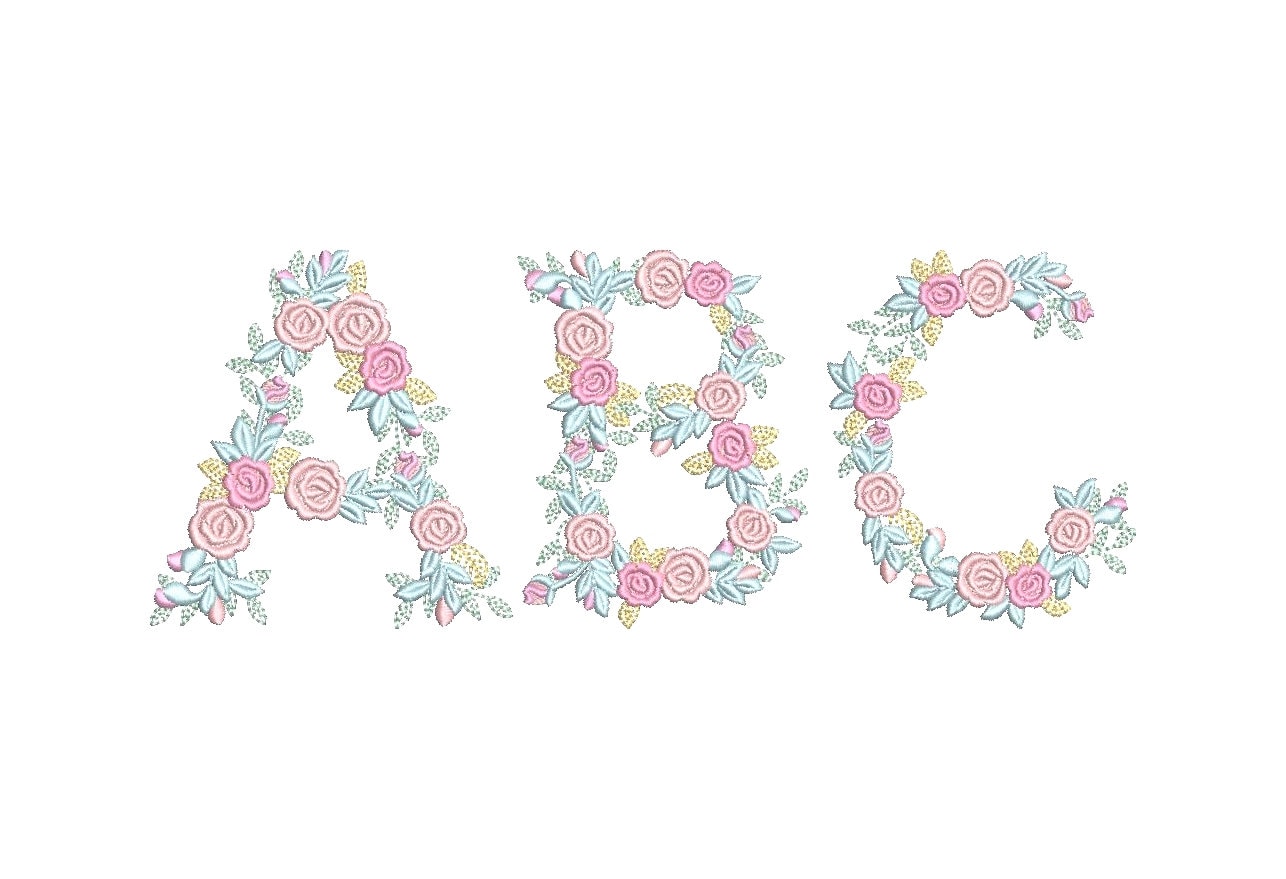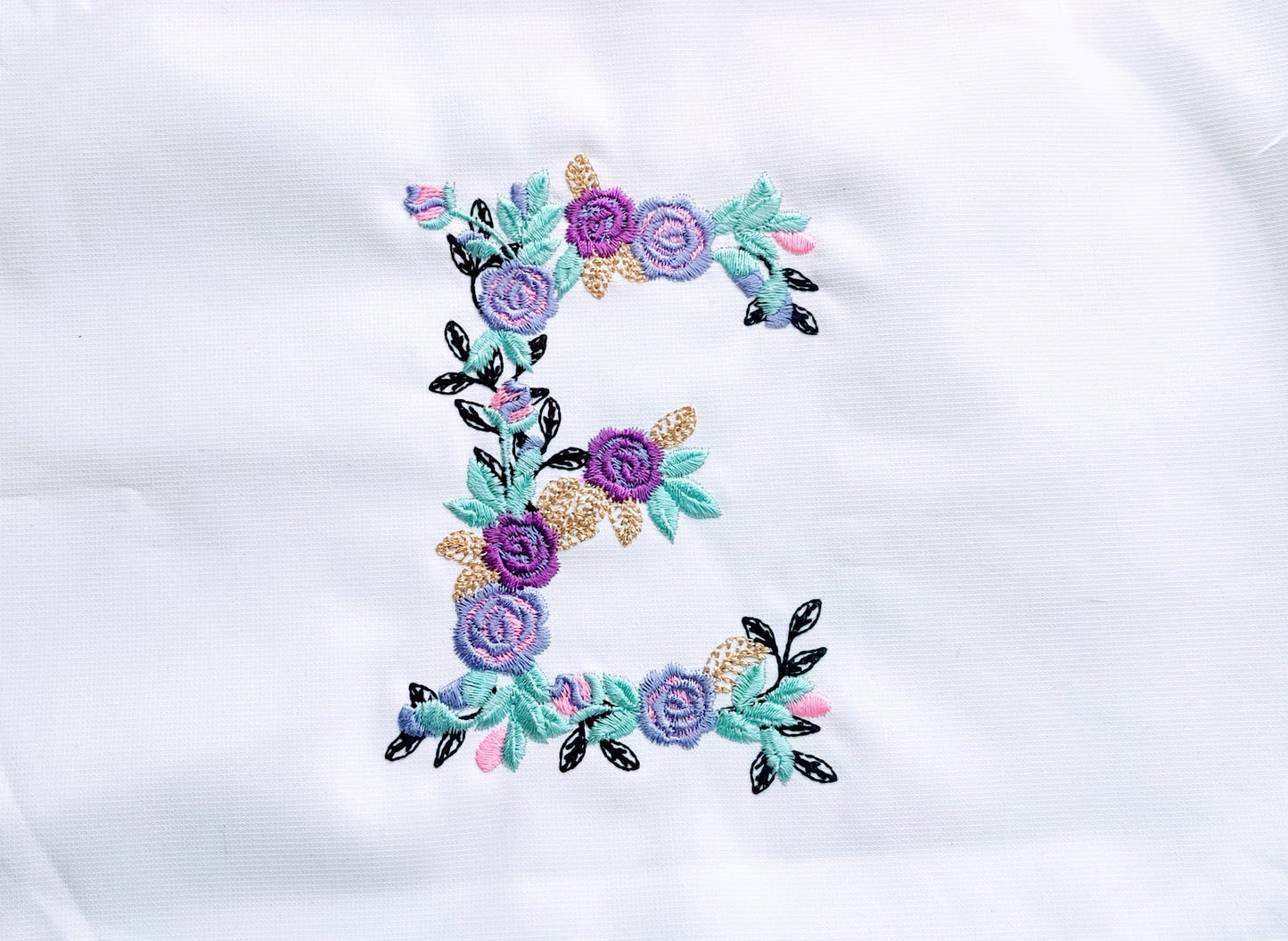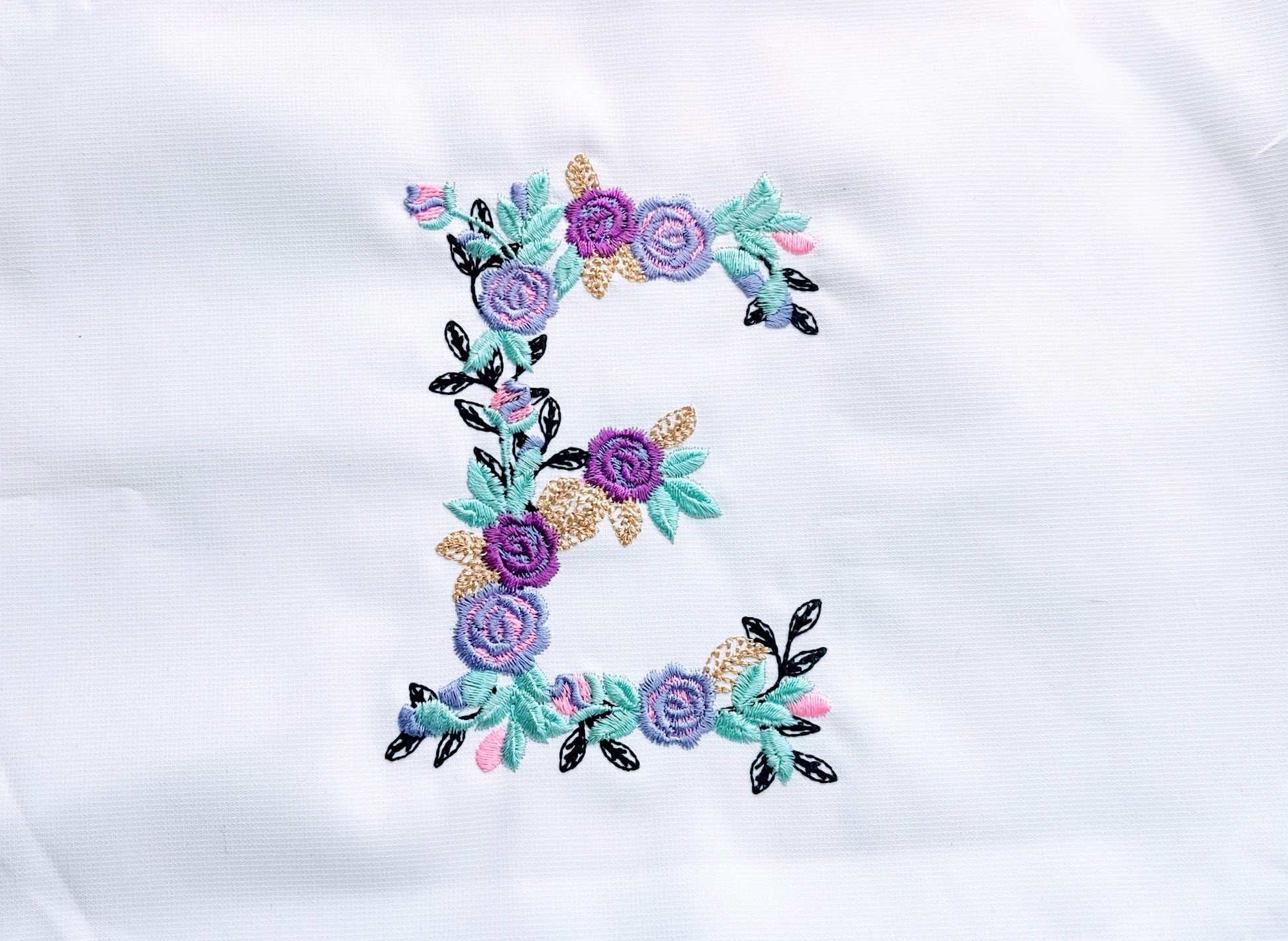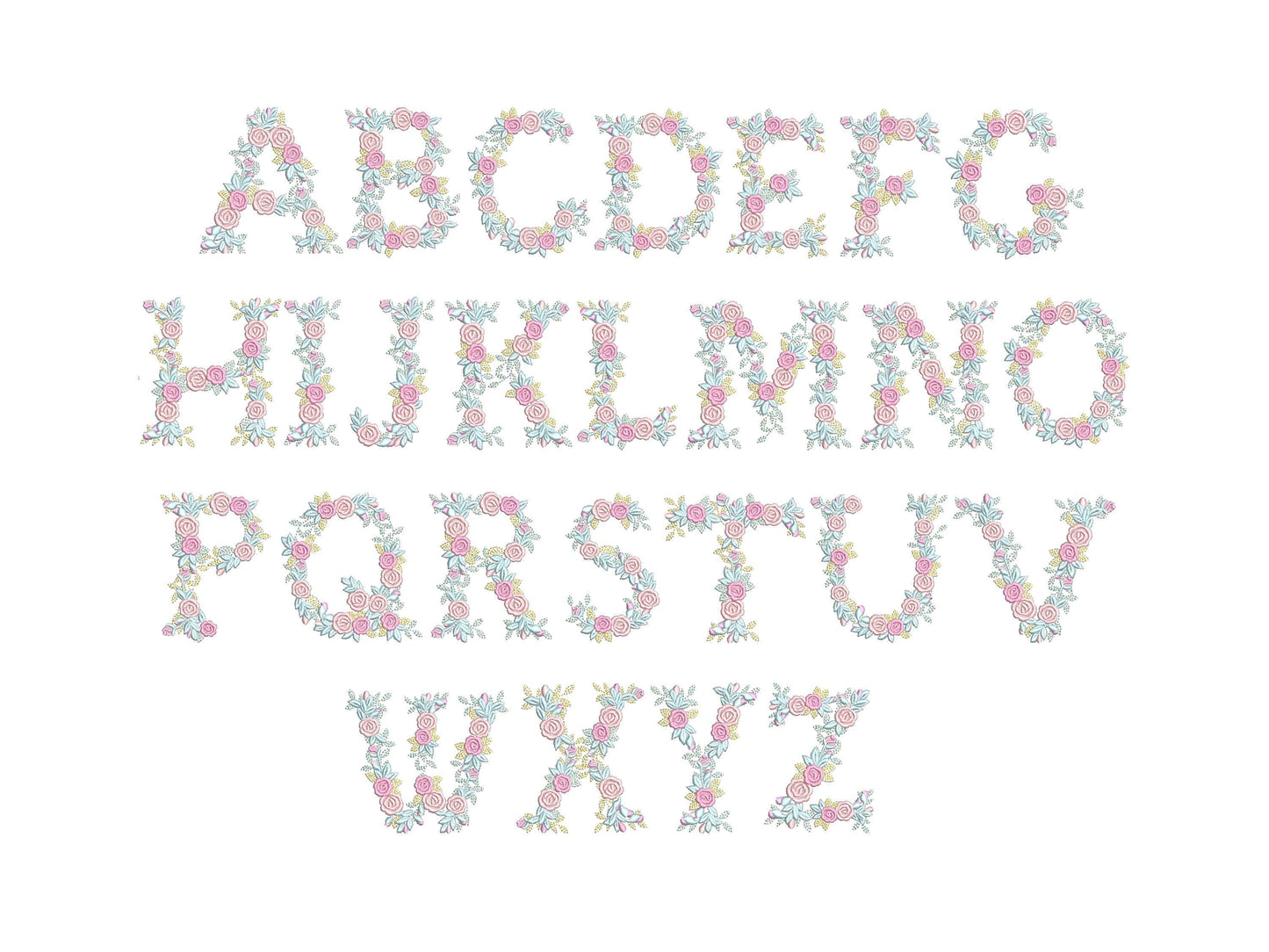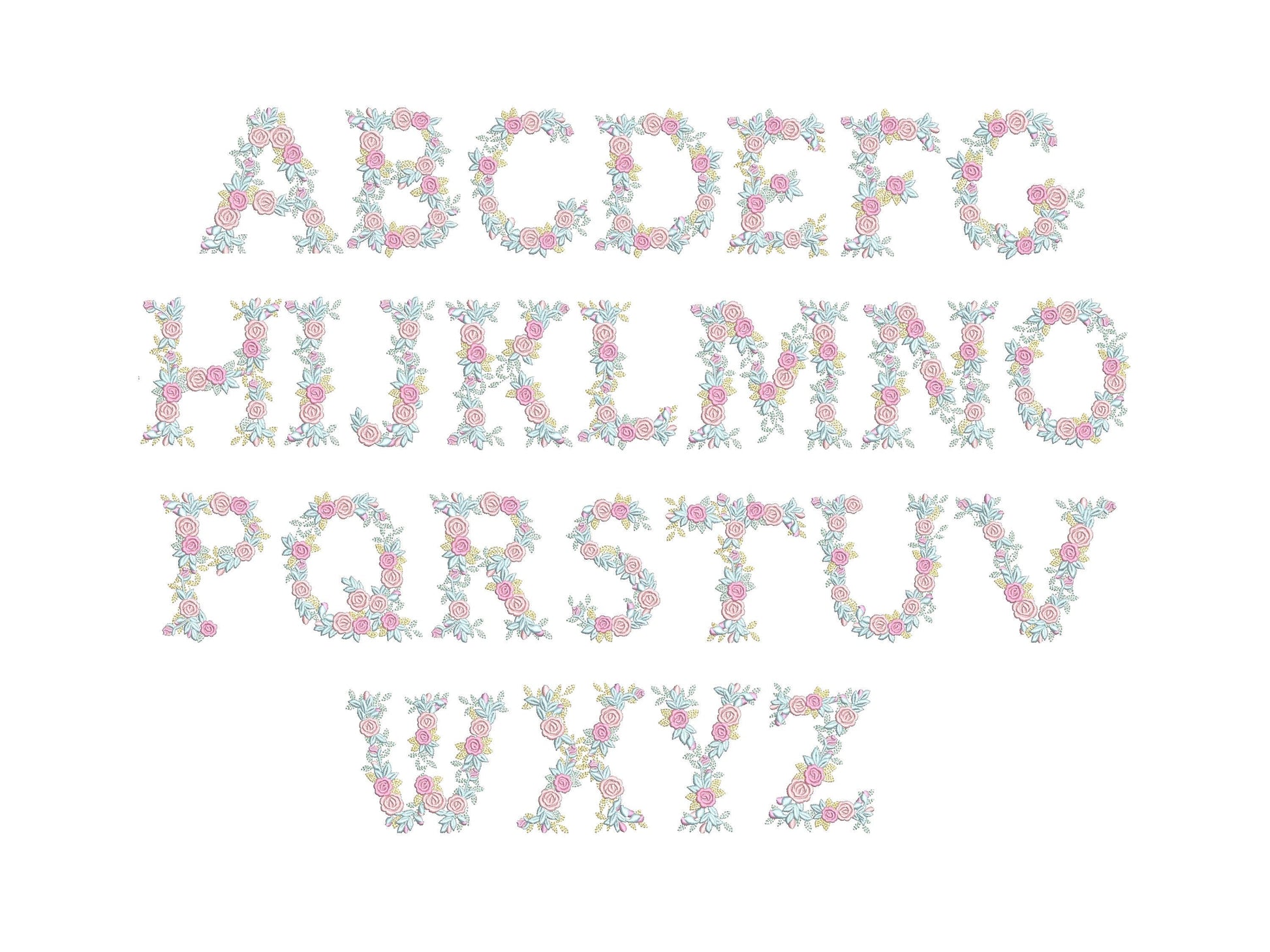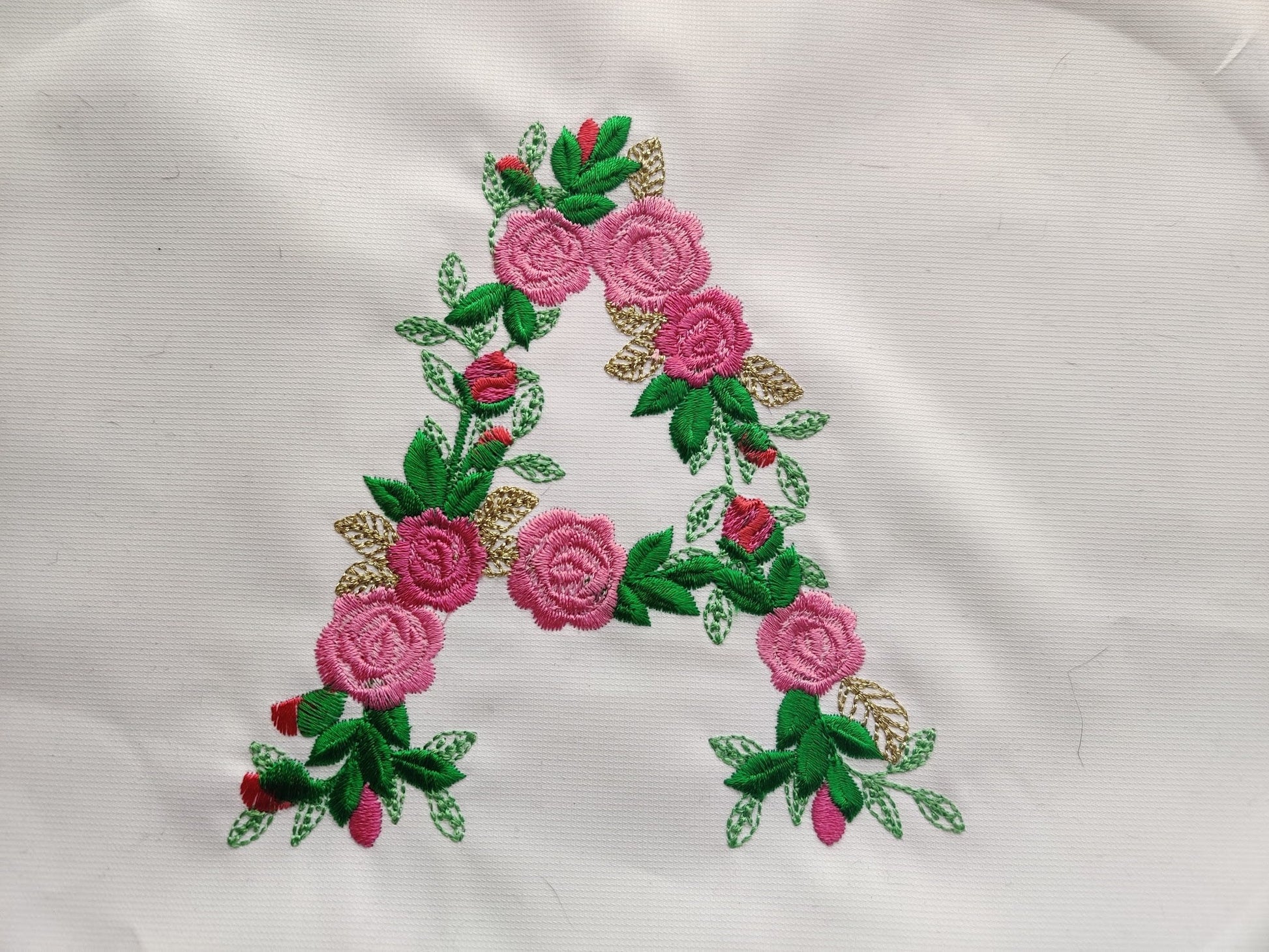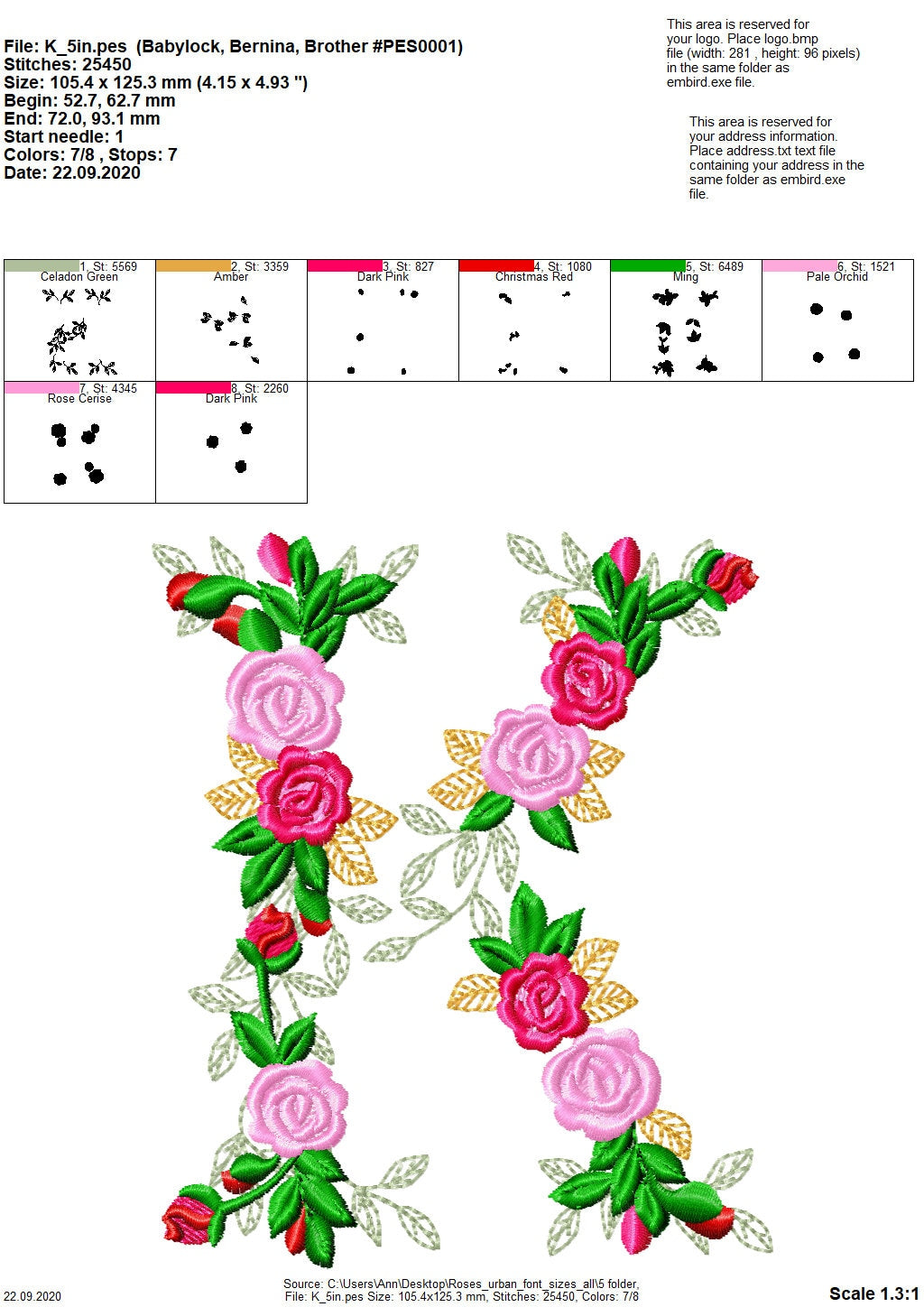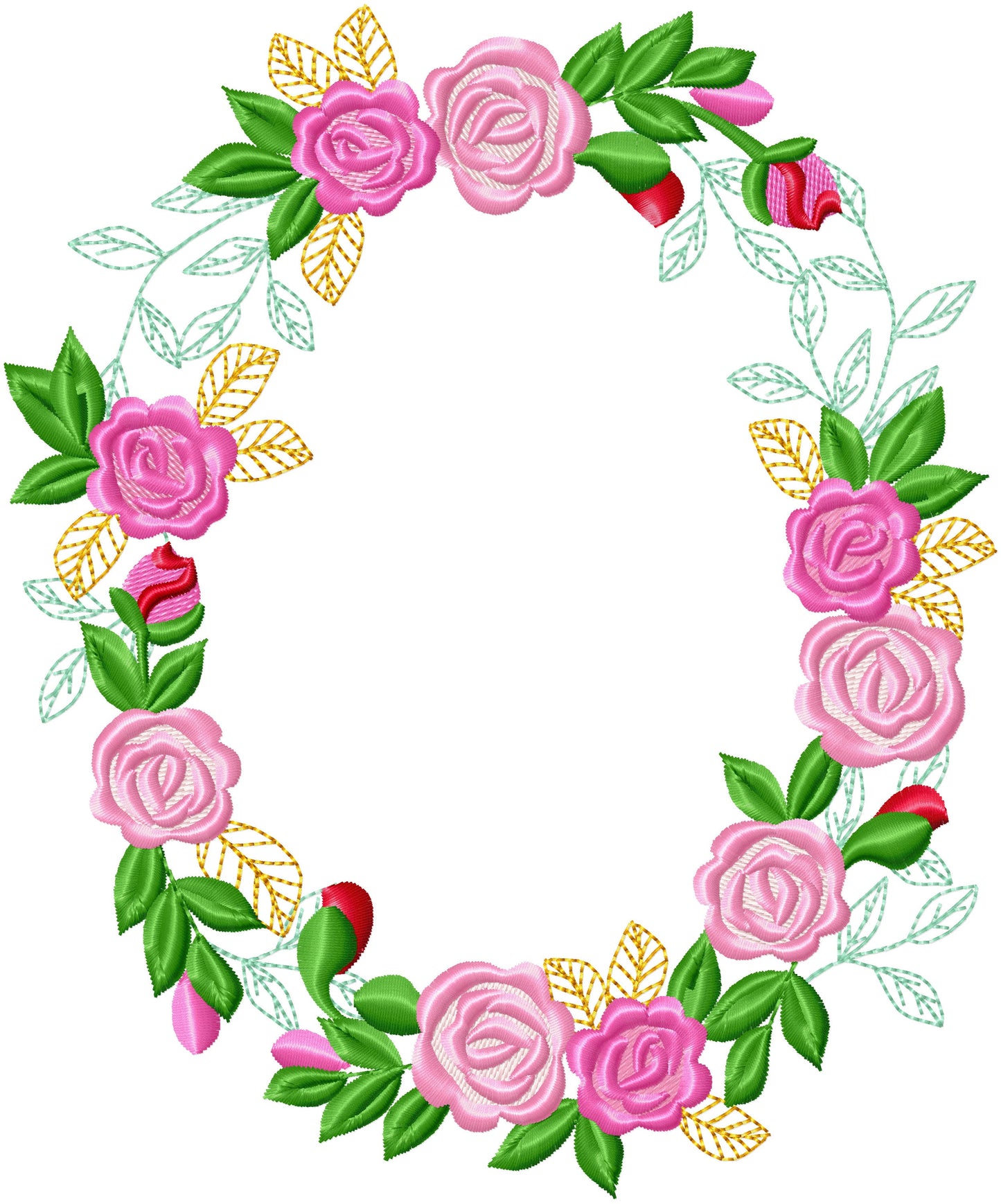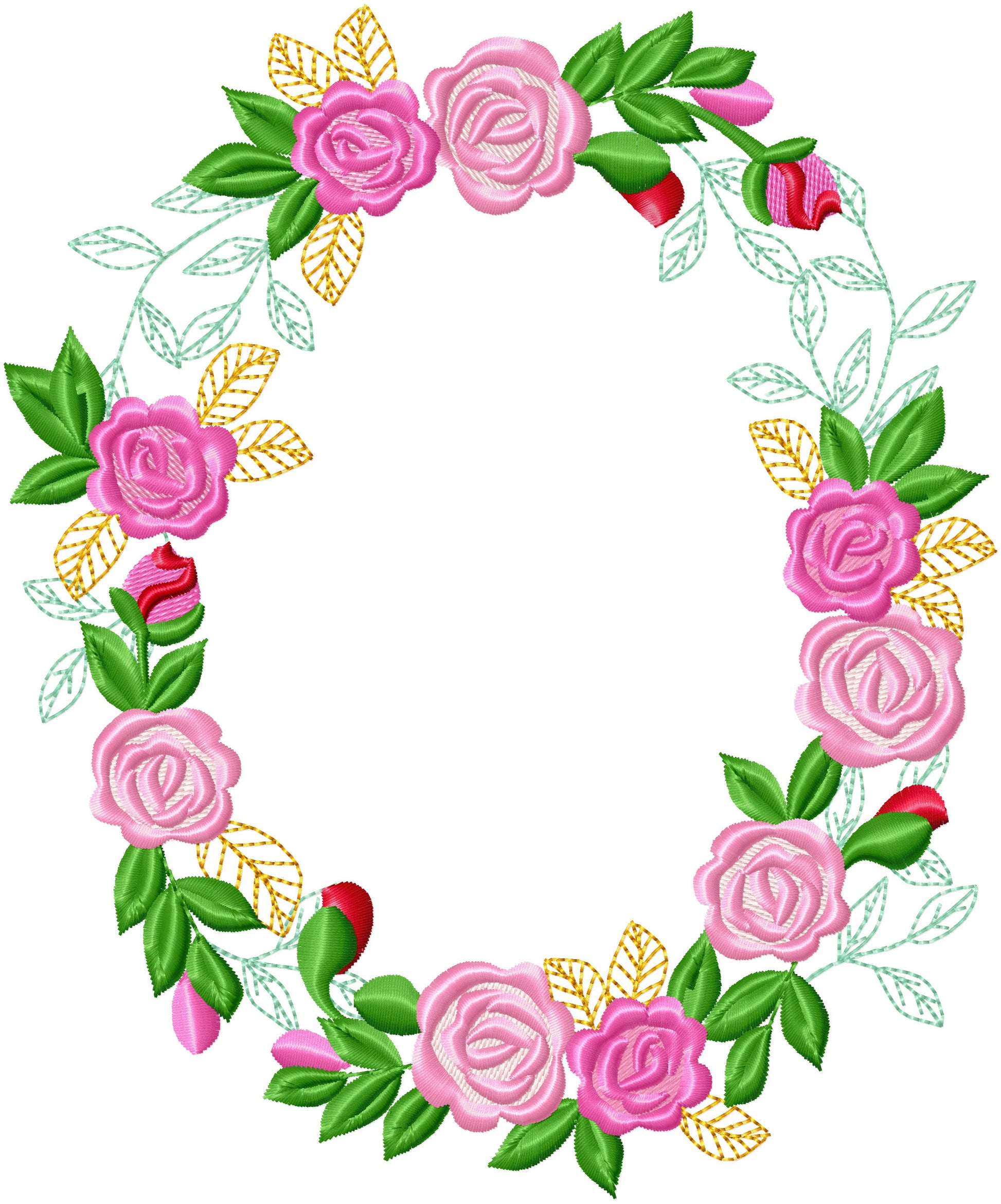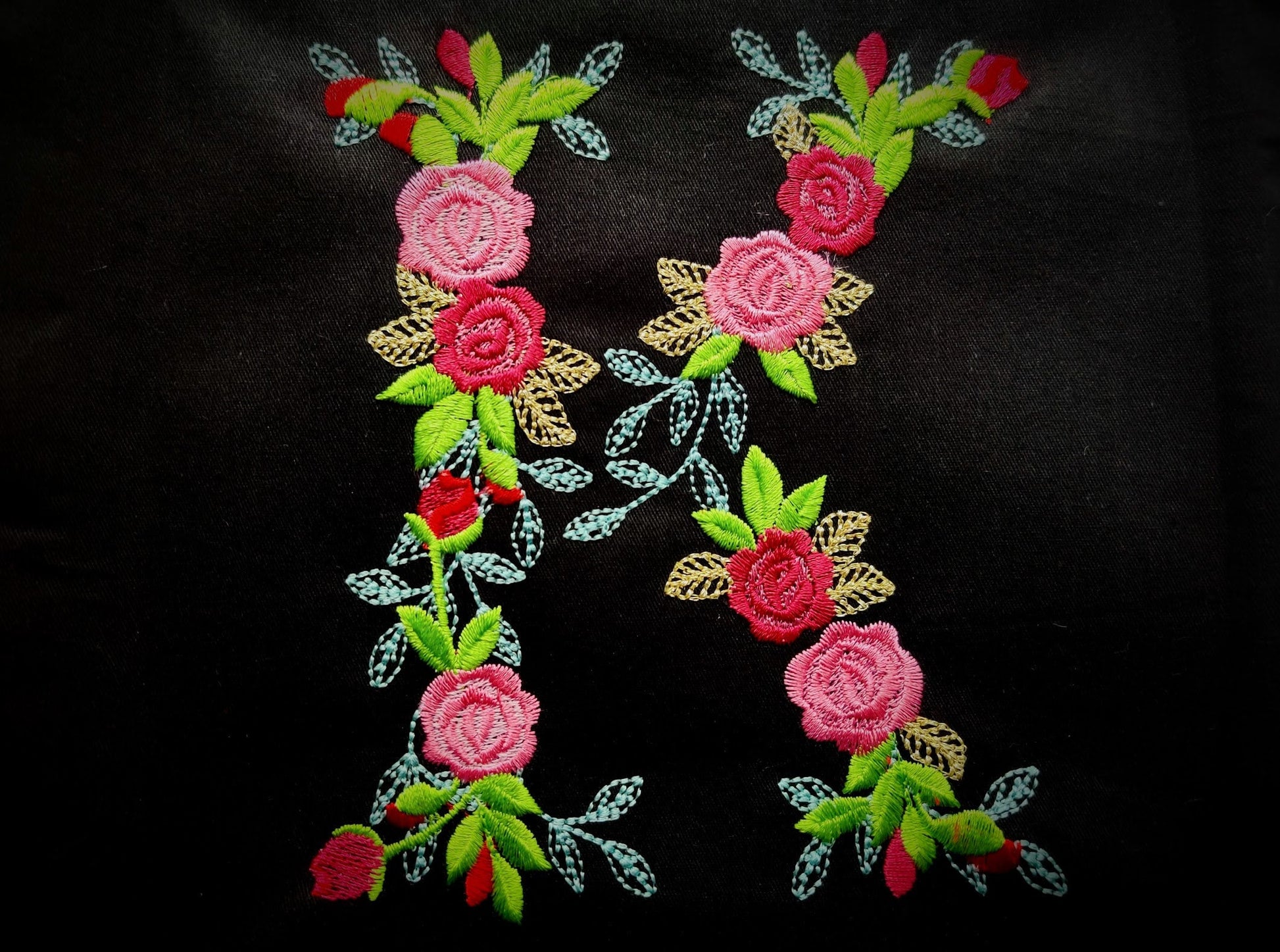
Delicate Roses Floral Font
Delicate Roses Floral whole entire alphabet A-Z garden flag monogram fashioned flower letters Font machine embroidery designs 3, 4, 6, 7, 8"